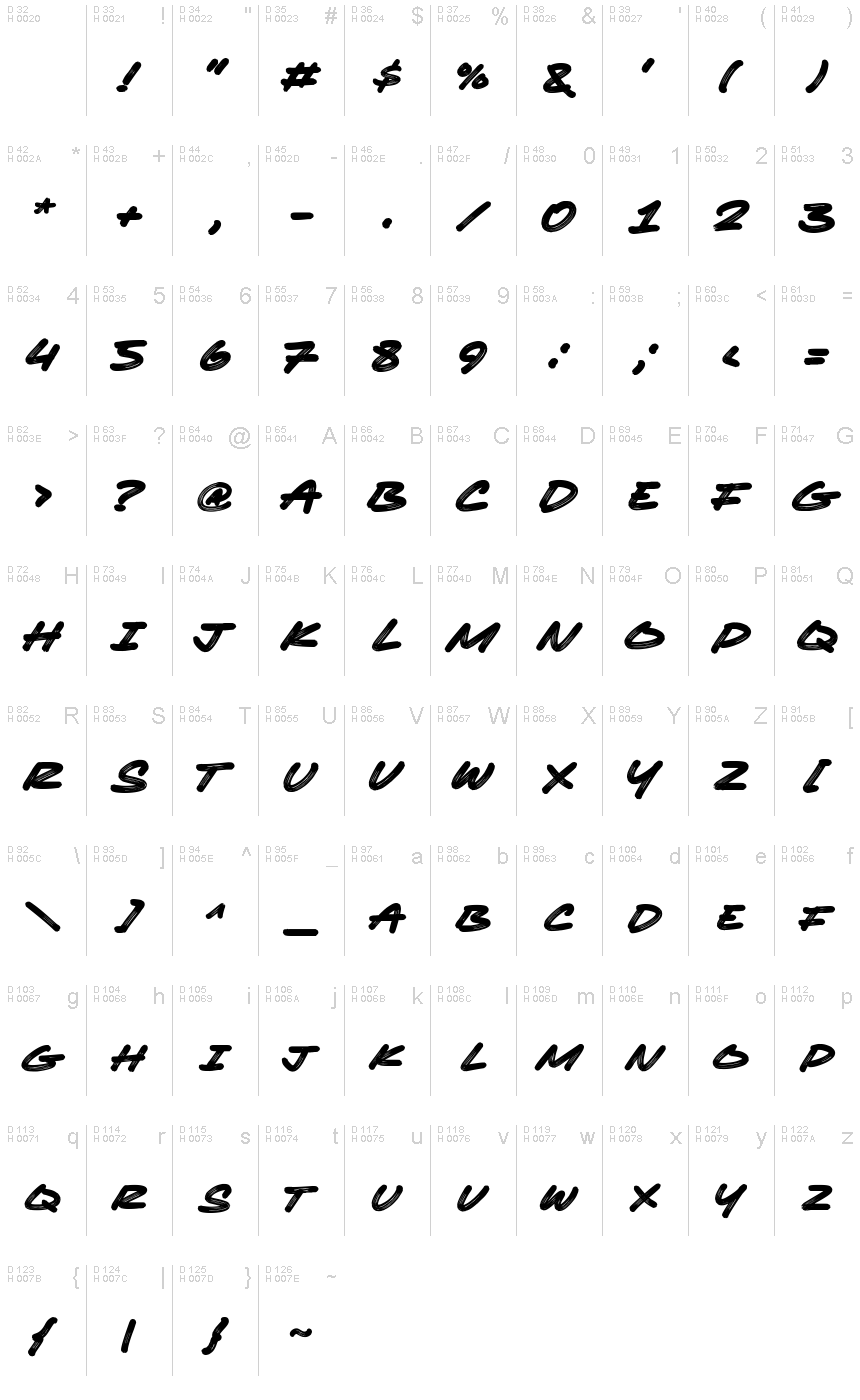
The Queen Marker
The Queen Marker is a bold, brush-inspired font that commands attention with its expressive, expanded strokes. Crafted by the talented team at Azetype Studio, this font exudes a sense of regal authority and artistic flair.
The thick, confident lines evoke a hand-lettered aesthetic, lending a touch of rustic charm to any design. Whether adorning a high-end fashion label or adding a touch of sophistication to a creative project, The Queen Marker's distinctive style makes a striking statement. Its versatility shines through, seamlessly adapting to headlines, logos, and eye-catching displays.
This font is a true embodiment of elegance and power, inviting designers to embrace its bold personality and elevate their work to new heights.